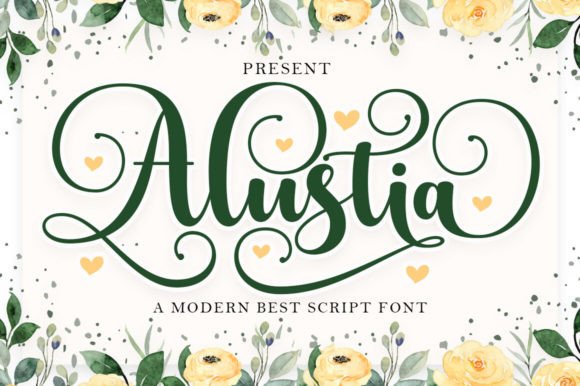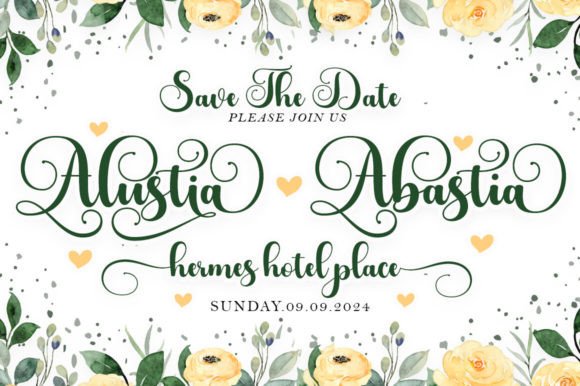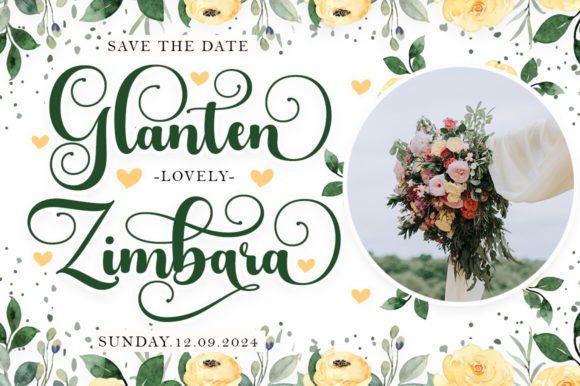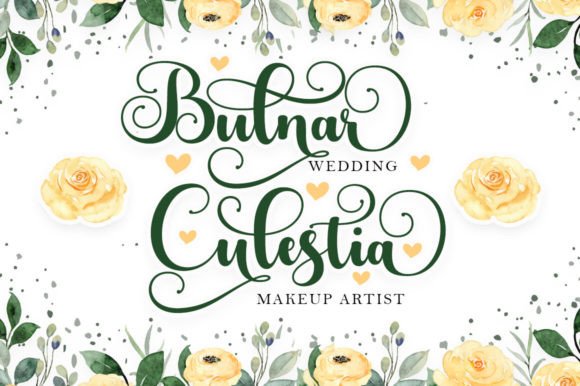
Alustia Font: Elegant Script for Wedding Invitations & Branding
About the Alustia Font
The Alustia Font offers a perfect balance of form and function for your design needs. Alustia is a sweet and friendly Script handwritten font. Fresh and sleek, this font is ideal for writing wedding invitations, cards, or any other design that might need a fun touch!
Alustia’s friendly, informal style makes it perfect for branding projects needing a touch of warmth, such as artisanal food products, children’s books, or wedding stationery. It also works well in short headlines or quotes on social media, adding a personal touch to marketing materials. However, due to its script nature and varying stroke weights, it’s unsuitable for body text or UI elements where readability is paramount. Avoid using it in lengthy paragraphs or small sizes.
Pairing Alustia effectively requires considering its handwritten nature. A clean sans-serif like Open Sans or Lato would create a strong contrast, balancing Alustia’s playful curves with a modern, legible counterpart. For a more vintage feel, a serif like Playfair Display could be used for headings, while Alustia acts as a stylish accent. Avoid pairing it with other script fonts to prevent visual clutter.
Alustia’s overall personality is best described as cheerful and approachable, conveying a sense of handcrafted authenticity. Its slight irregularities add to its charm, making it a great choice for projects that prioritize a friendly and inviting aesthetic.